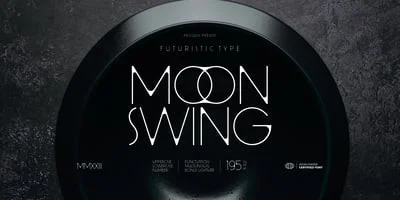
Moon Swing Font
Moon Swing Font is perfect for jazz club branding, swing dance event promotions, vintage music venues, retro cocktail bar signage, 1940s themed parties, big band festival materials, nostalgic entertainment campaigns, and classic dance studio marketing.
This font is exciting because it captures the rhythmic elegance of swing era music with jazz sophistication and dance-inspired fluidity. Moon Swing Font features flowing letterforms with musical rhythm that evoke the golden age of swing dancing and moonlit ballrooms, making it ideal for projects that require vintage charm and authentic musical character.
The Moon Swing Font family includes regular, light, bold, and script variants, along with jazz-inspired alternates and musical ligatures that enhance its swing character. Each weight maintains the font's rhythmic aesthetic while providing different levels of musical expression for various entertainment and vintage design applications.
Whether you're developing authentic jazz brands, creating compelling swing dance materials, or designing nostalgic music campaigns, Moon Swing Font delivers exceptional rhythm and vintage appeal. Its distinctive swing style makes it an excellent choice for designers seeking to add genuine jazz era charm and musical sophistication to their projects. The font's versatility extends from dance studio branding to vintage event signage, ensuring consistent performance across all swing applications. With its musically crafted letterforms and dance proportions, this typeface provides professional results that capture swing era magic and establish rhythmic brand presence with its unmistakable jazz character and moonlit dance elegance.